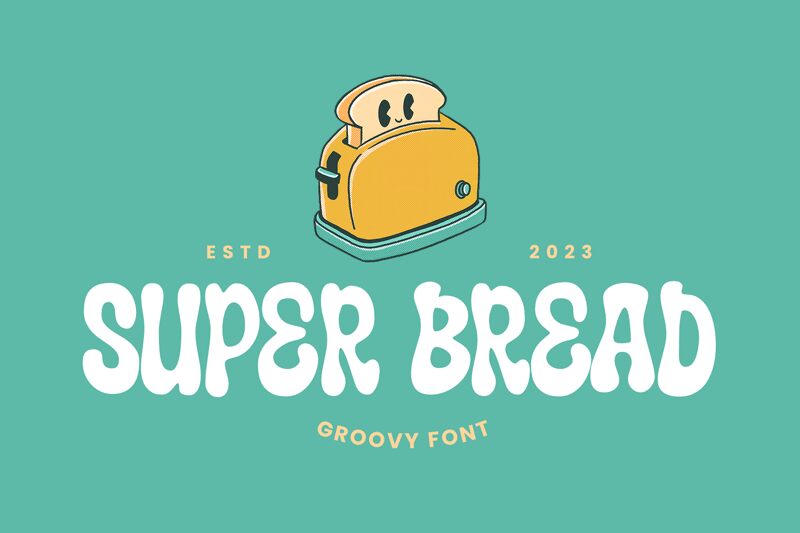
Super Bread
Super Bread, designed by fsuarez913, is a bold and condensed display font that exudes a groovy and retro aesthetic. Its rounded letters and bubbly curves evoke a sense of whimsy and lightheartedness, while the thick and thin strokes inject excitement and energy into any design.
With its playful charm, Super Bread is perfect for children's books, where it can bring characters to life with its fun-filled personality. Its groovy style also makes it an excellent choice for comics, adding a vintage touch to speech bubbles and captions.
Moreover, this font is well-suited for advertising campaigns that aim to capture attention with its unique visual appeal. It can effortlessly elevate posters, catching the eye of passersby with its distinct retro vibe.
Menus can benefit from Super Bread's cheerful nature as well. Whether used in restaurants or cafes, this font adds a touch of nostalgia to food descriptions or headings.
Lastly, Super Bread can enhance packaging designs by making product names pop off the shelf with its bold presence.
In conclusion, Super Bread is an all-around versatile display font that brings joy and vibrancy to projects such as children's books, comics, advertising campaigns, posters, menus, and packaging designs.